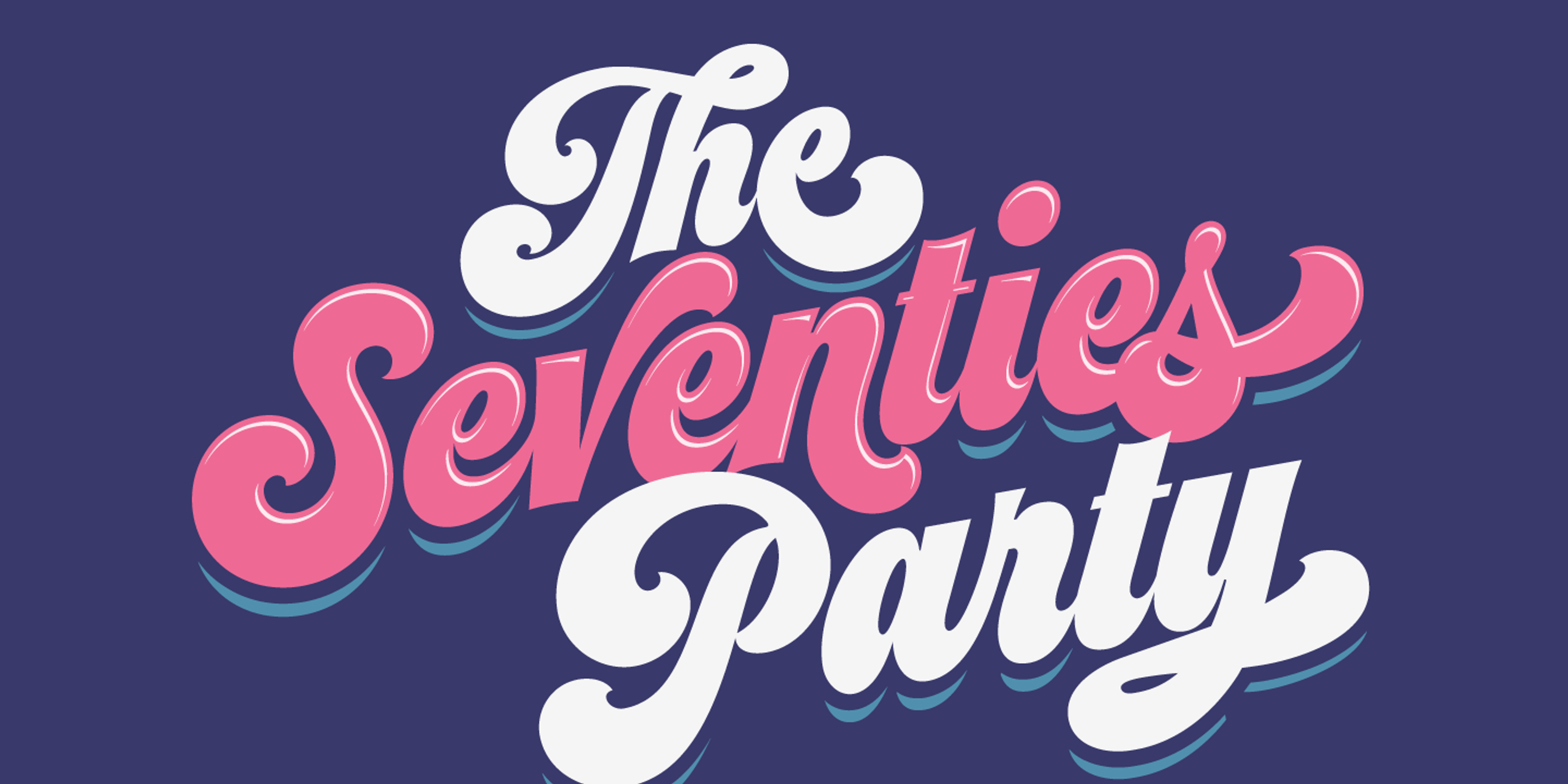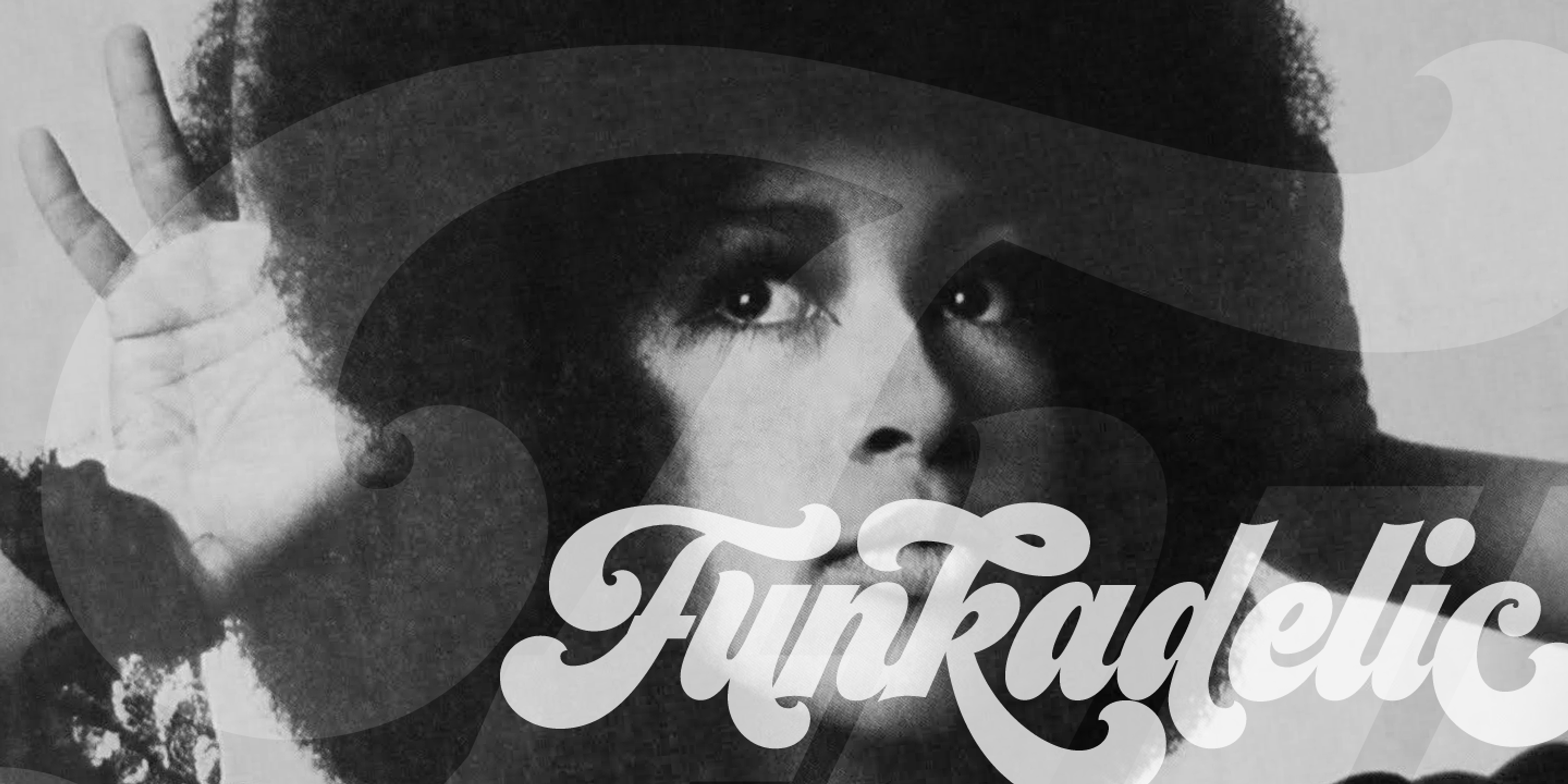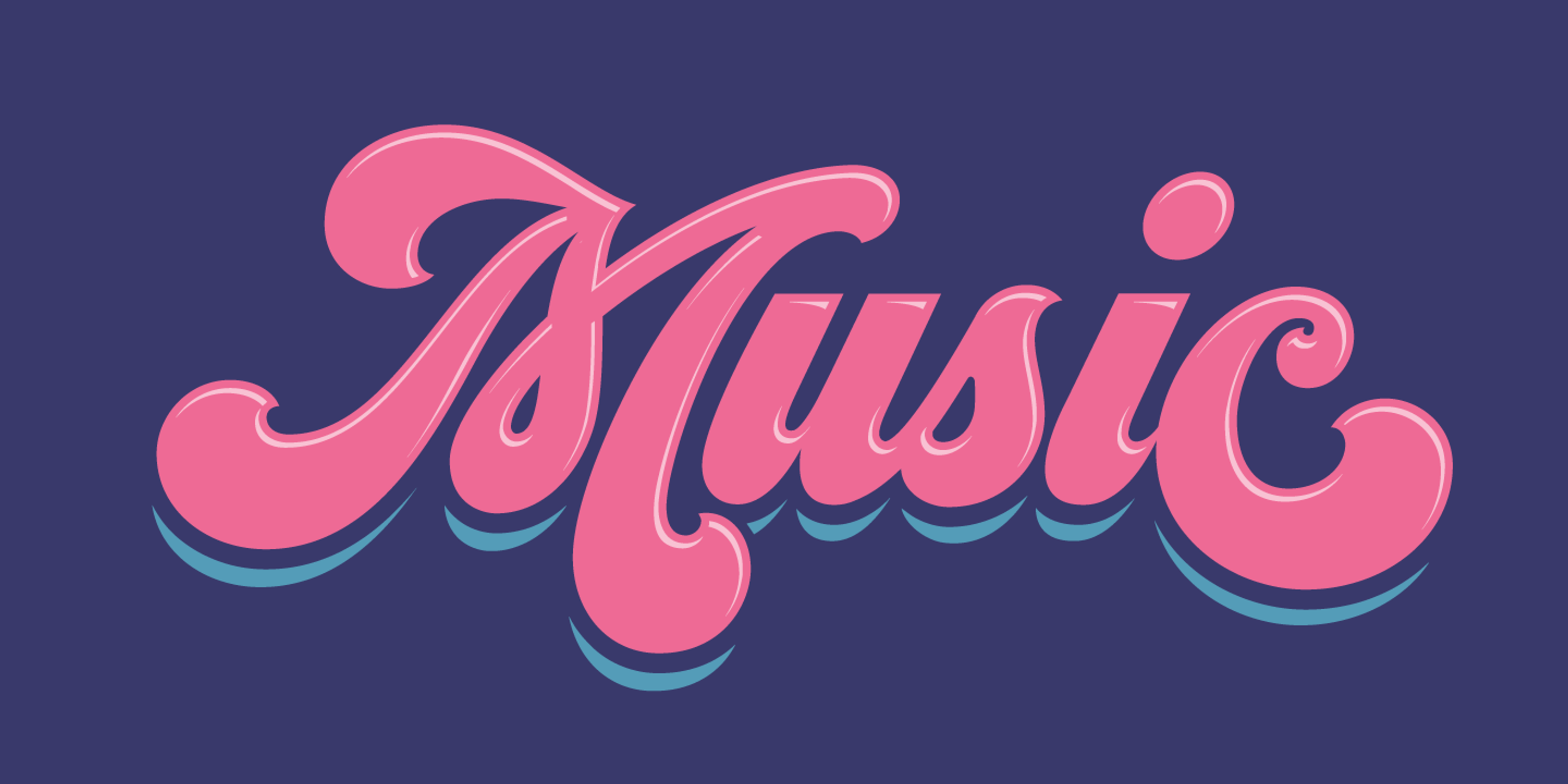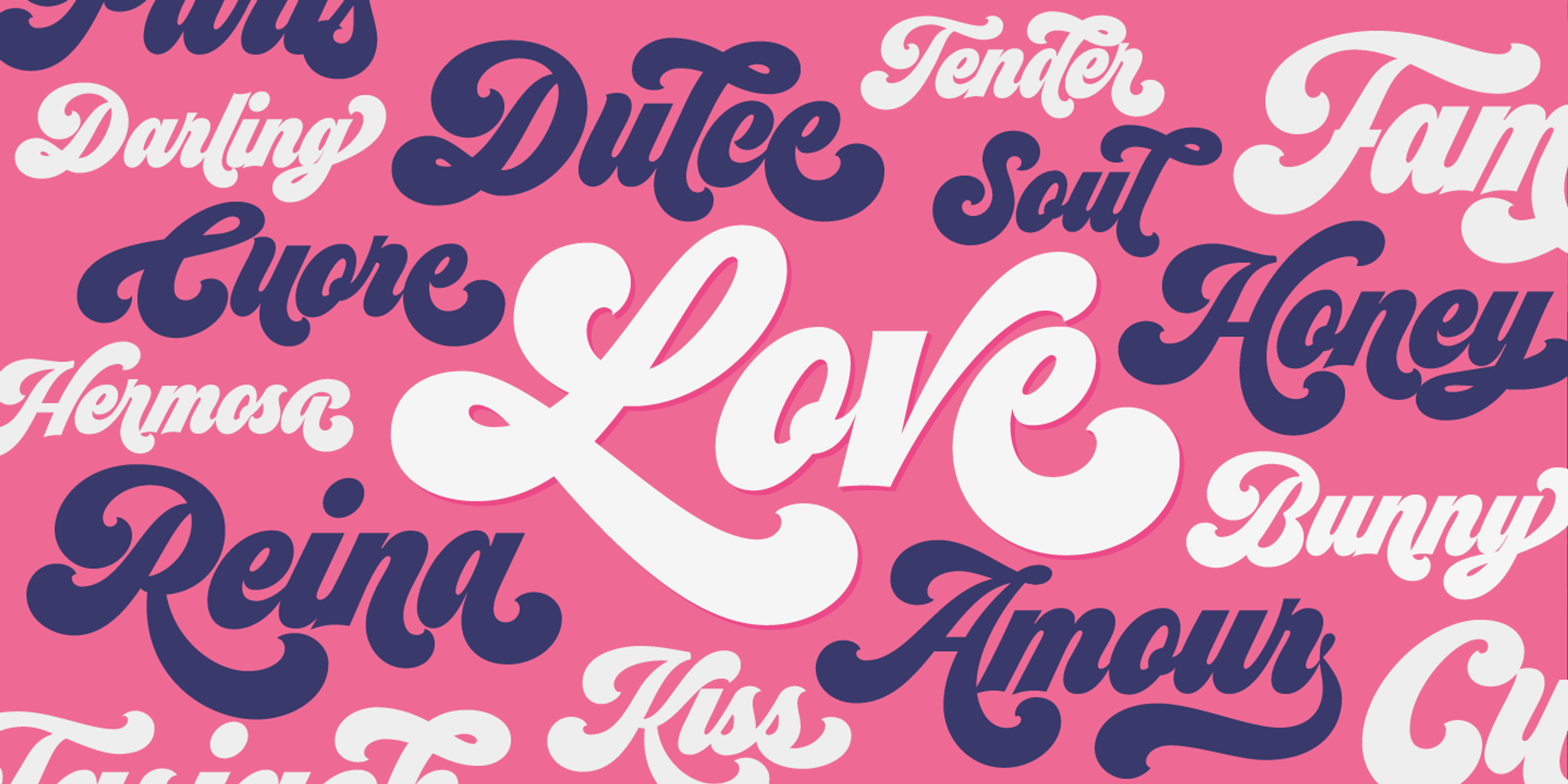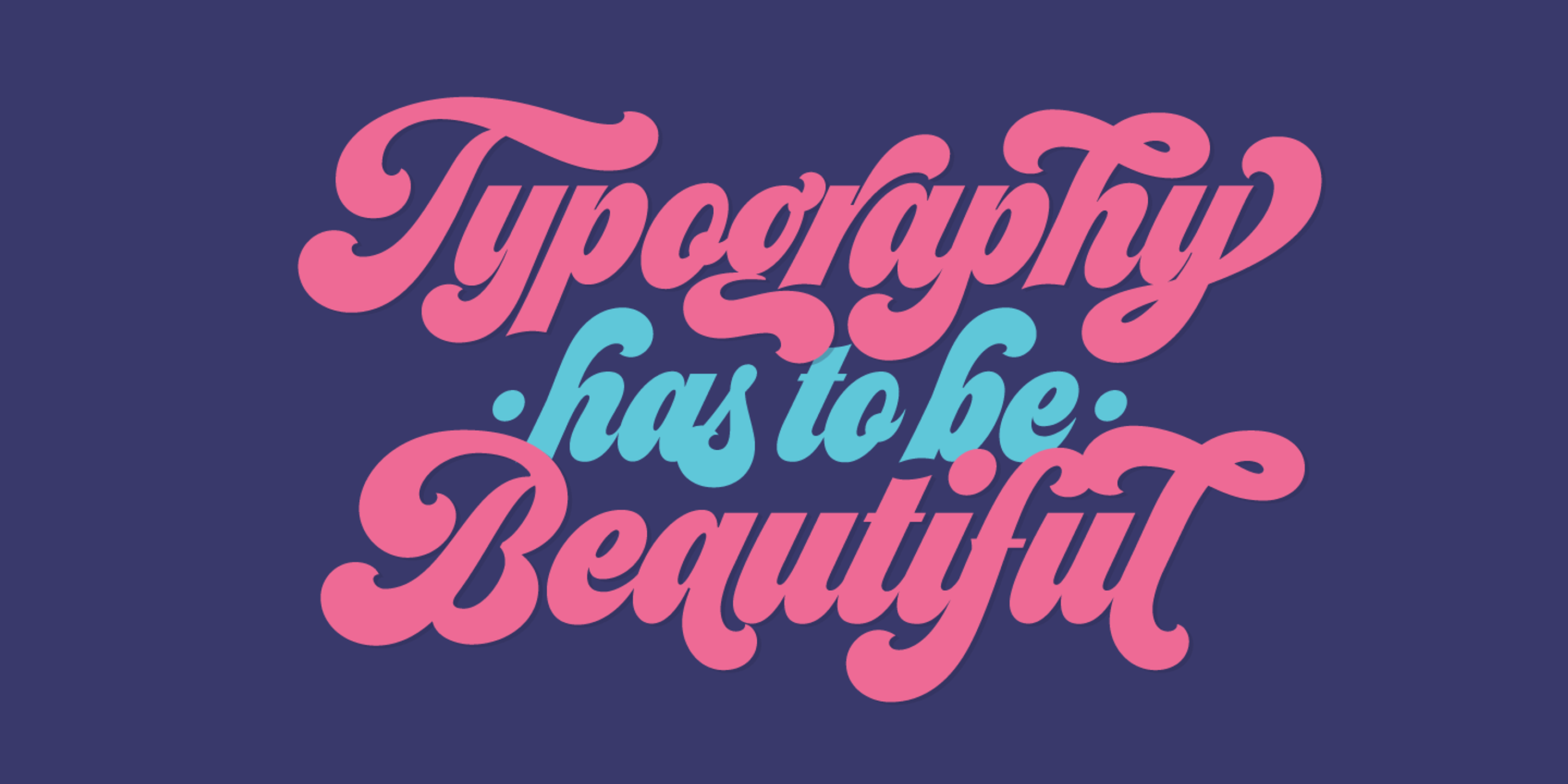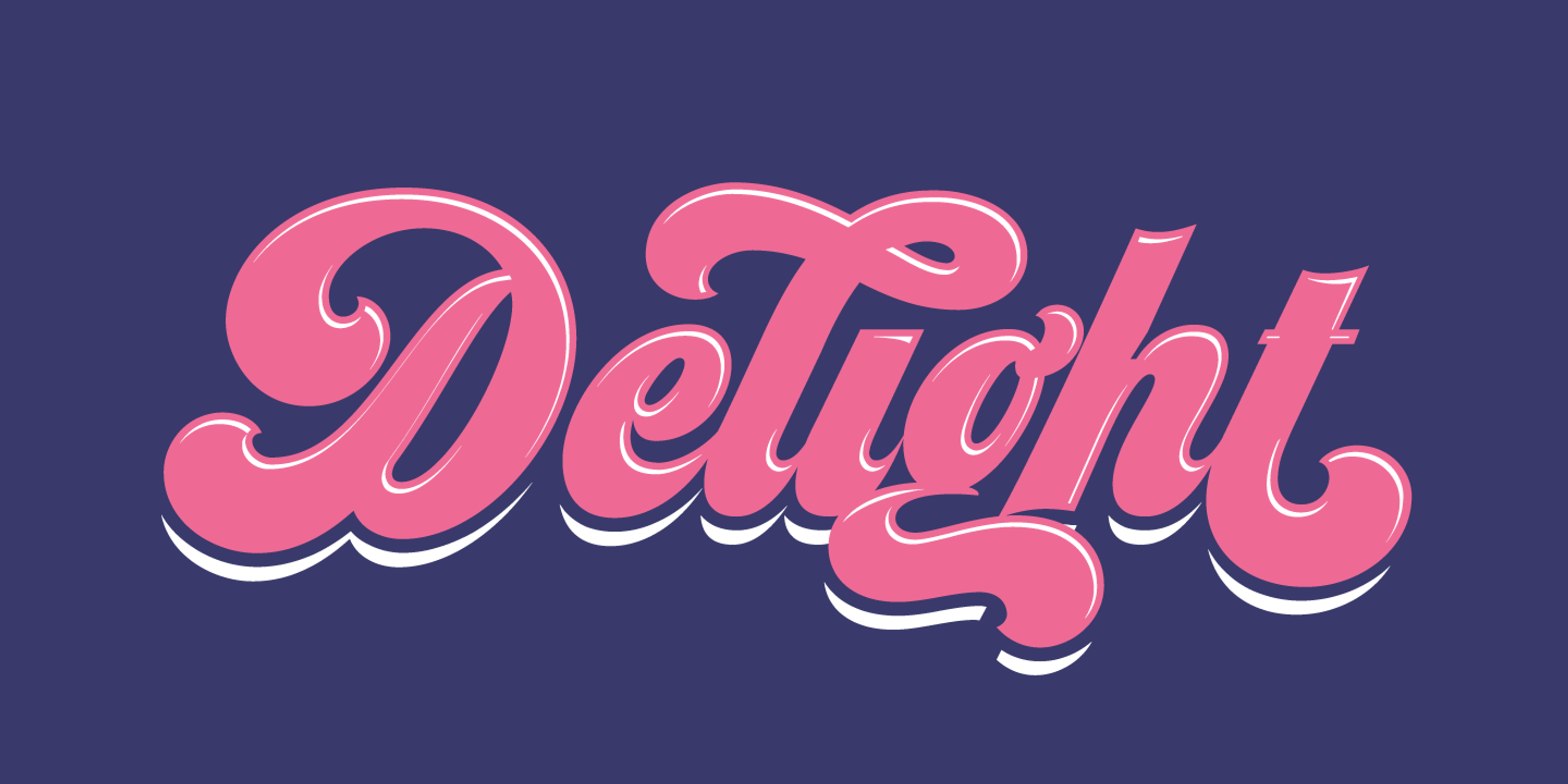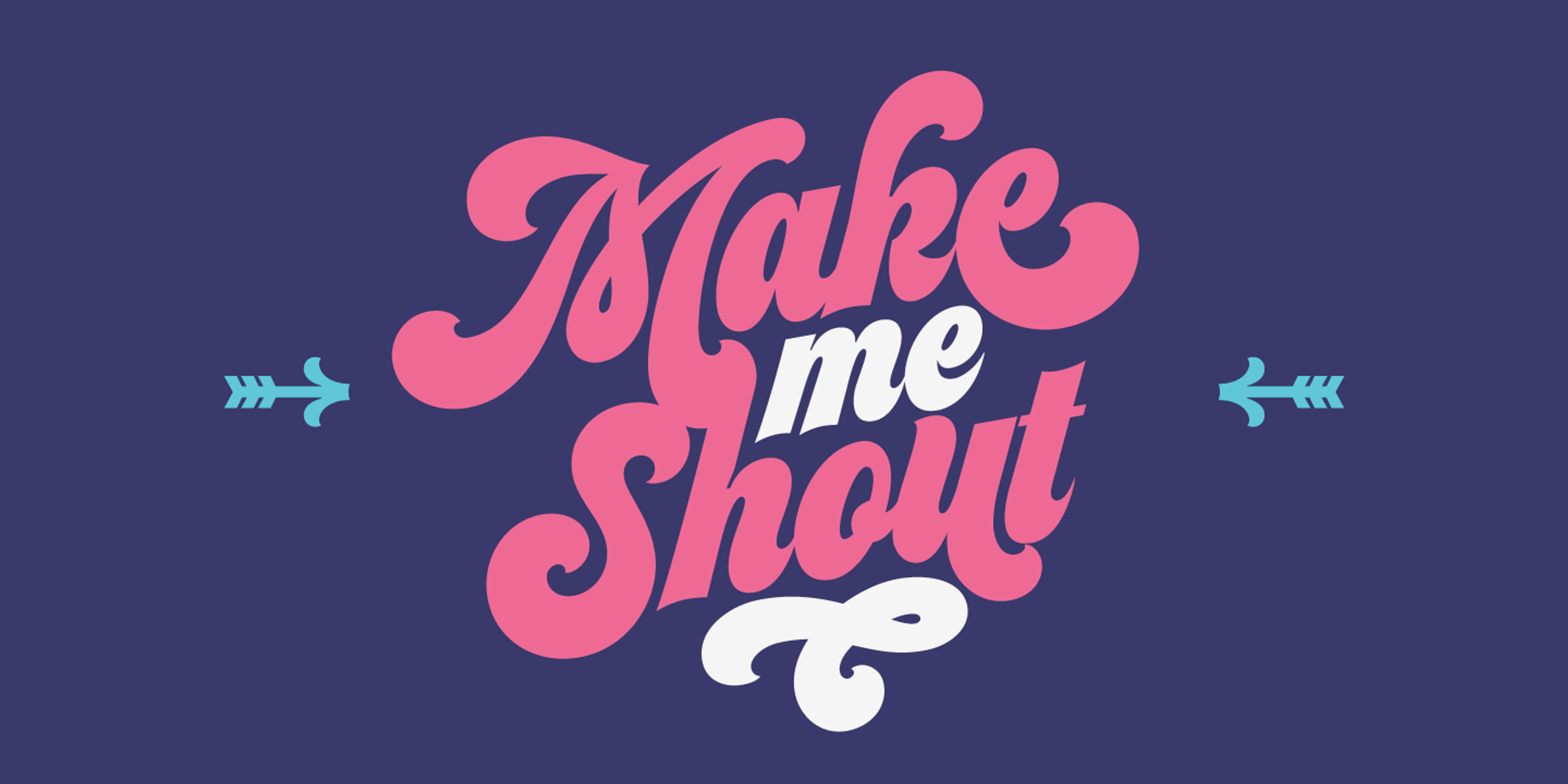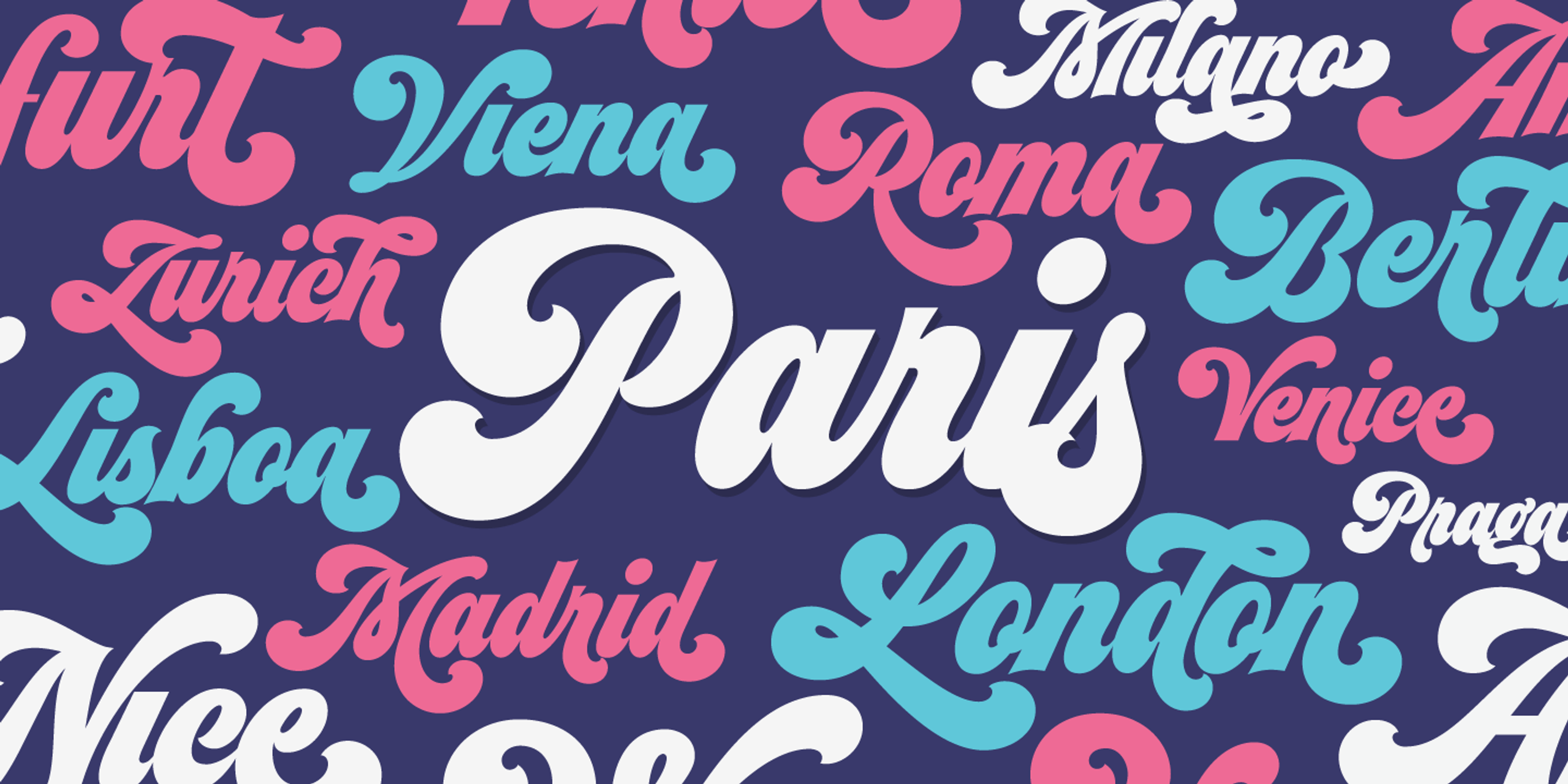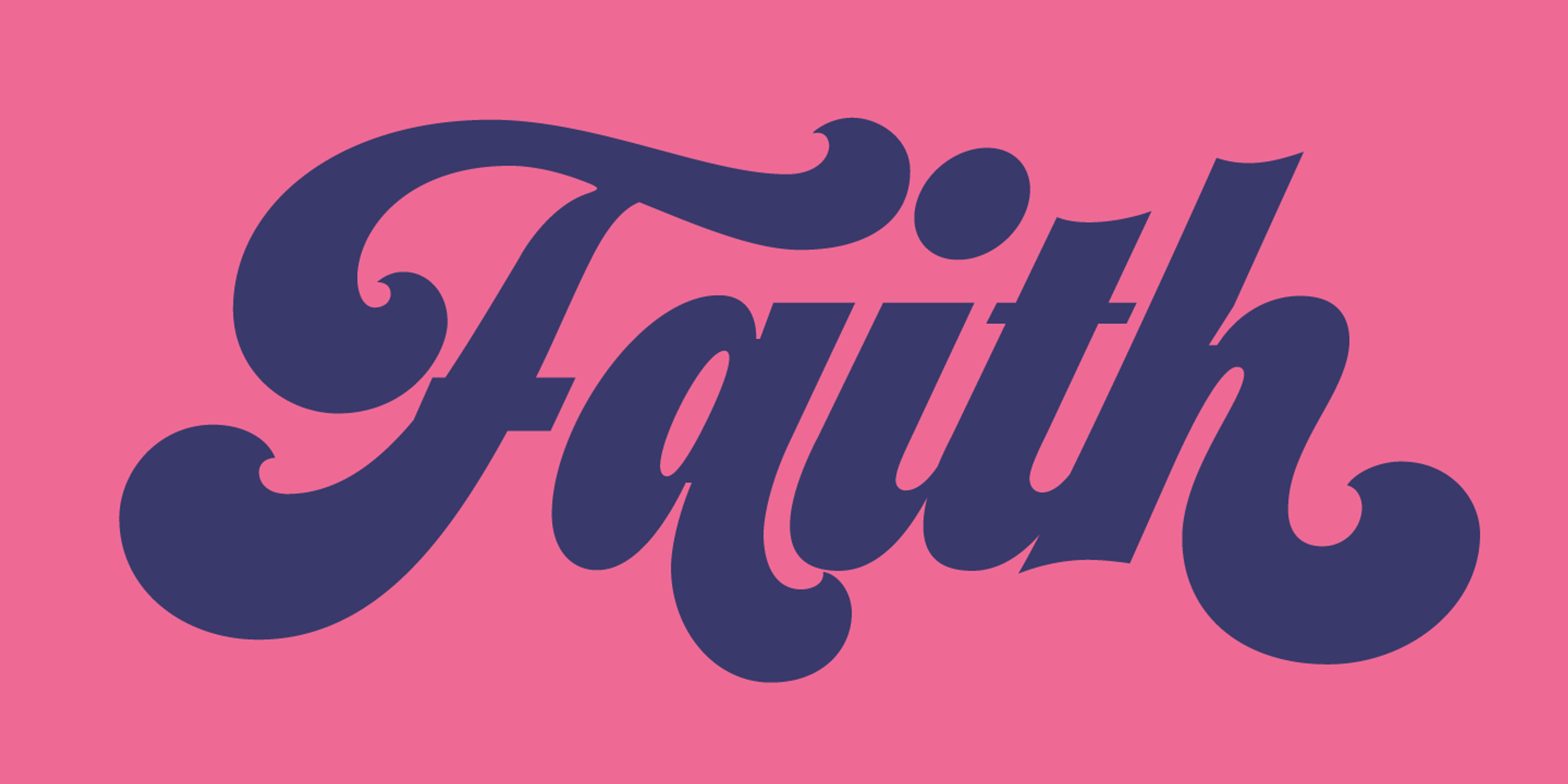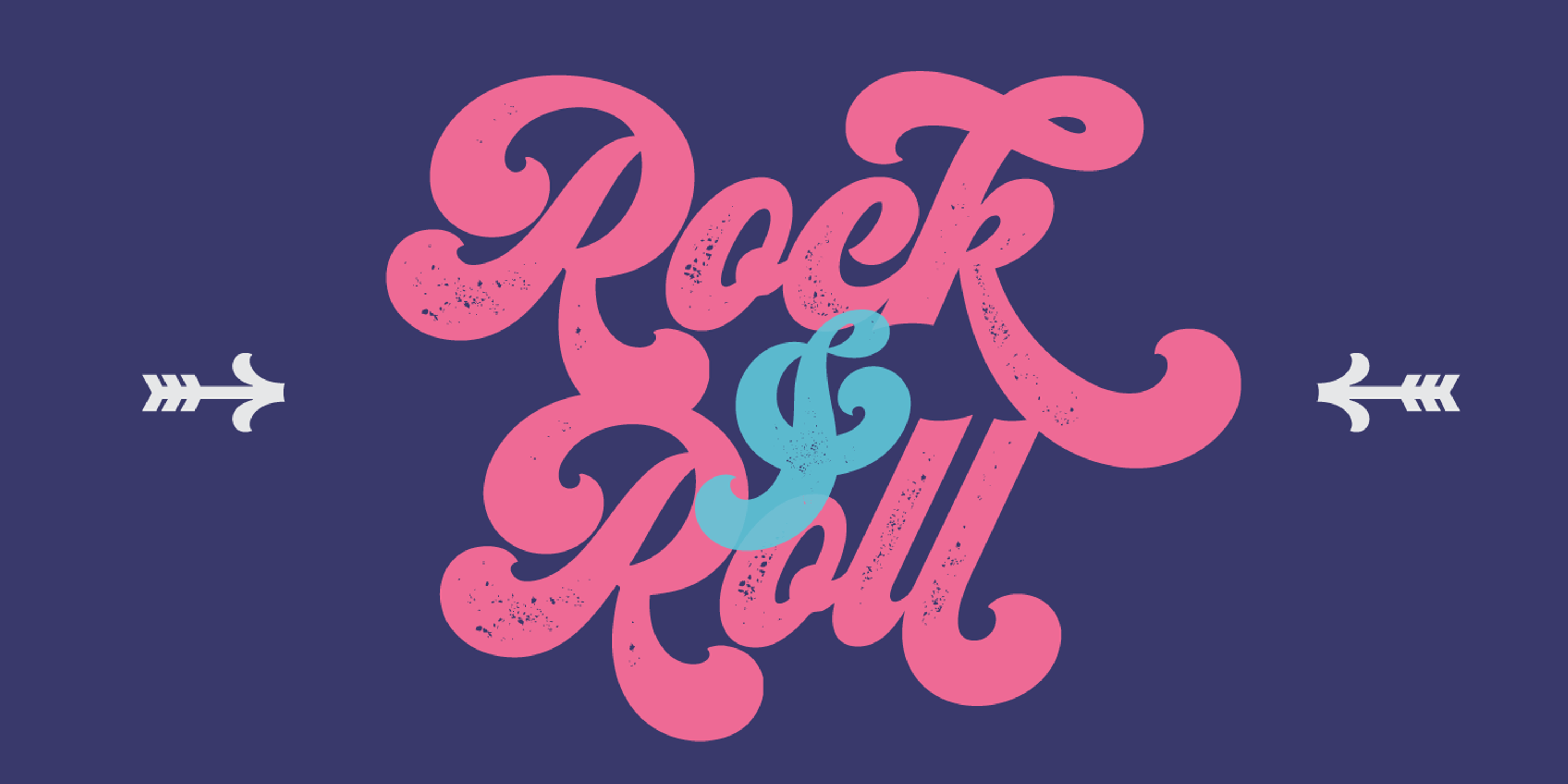
Seventies font by Sproviero Type — the word “Funkadelic” in a bold, connected script, overlaid on a black and white image of a person with an afro, holding a hand to their ear
Seventies font by Sproviero Type — the words “The Seventies Party” in a bold, connected script, with “The” and “Party” in white and “Seventies” in pink, all with a light blue drop shadow
Seventies font by Sproviero Type — the word “Music” in a bold, connected, high-contrast script with a pink fill and blue drop shadow
Seventies font by Sproviero Type — the word “Love” in large white connected script, surrounded by other words like “Darling”, “Cuore”, “Reina”, “Dulce”, “Tender”, “Soul”, “Honey”, “Bunny”, and “Amour” in both white and dark blue connected script.
Seventies font by Sproviero Type — the words “Typography has to be Beautiful” in a connected script, with “Typography” and “Beautiful” in pink and “has to be” in blue
Seventies font by Sproviero Type — the word “Delight” in a bold, connected, upright script with a pink fill and a white and dark pink outline
Seventies font by Sproviero Type — the words “Make me Shout” in a connected script, with “Make” and “Shout” in pink and “me” in white, flanked by two blue decorative arrows.
Seventies font by Sproviero Type — the words “Paris”, “London”, “Lisboa”, “Zurich”, “Viena”, “Roma”, “Milano”, “Berlin”, “Venice”, “Madrid”, “Nice”, and “Praga” in a connected script, with “Paris” in white and other words in pink or light blue.
Seventies font by Sproviero Type — the word “Faith” in a bold, connected script with swashes and a high-contrast appearance
Seventies font by Sproviero Type — the words “Rock & Roll” in a distressed, connected script, with “Rock” and “Roll” in pink and the ampersand in blue, flanked by white decorative arrows.
Seventies Printed
Seventies Shade
Seventies Shade Solo
Seventies Shine
Seventies Shine Solo
Seventies Regular
Seventies is a bold, curvy script channeling the free spirit of 1970s lettering design. With lush, rolling forms, ultra-thick strokes, and a brushy rhythm, it gives any project a groovy, high-impact look. A nod to something vintage with a playful twist, it’s perfect as the typographic link in any brand identity system. Think cross-media promotion, including titles, posters, packaging, brochures, and advertisements. Whether you’re aiming for retro flair or good vibes, Seventies brings the funk!
Ligatures
Ornaments
Stylistic Alternates
Swashes
Stylistic Set 1
Stylistic Set 2
Stylistic Set 3
Stylistic Set 4
Stylistic Set 6
Stylistic Set 7
Stylistic Set 8
Stylistic Set 9
Stylistic Set 10
Stylistic Set 19
Stylistic Set 20
Titling
Initial Forms
Final Forms